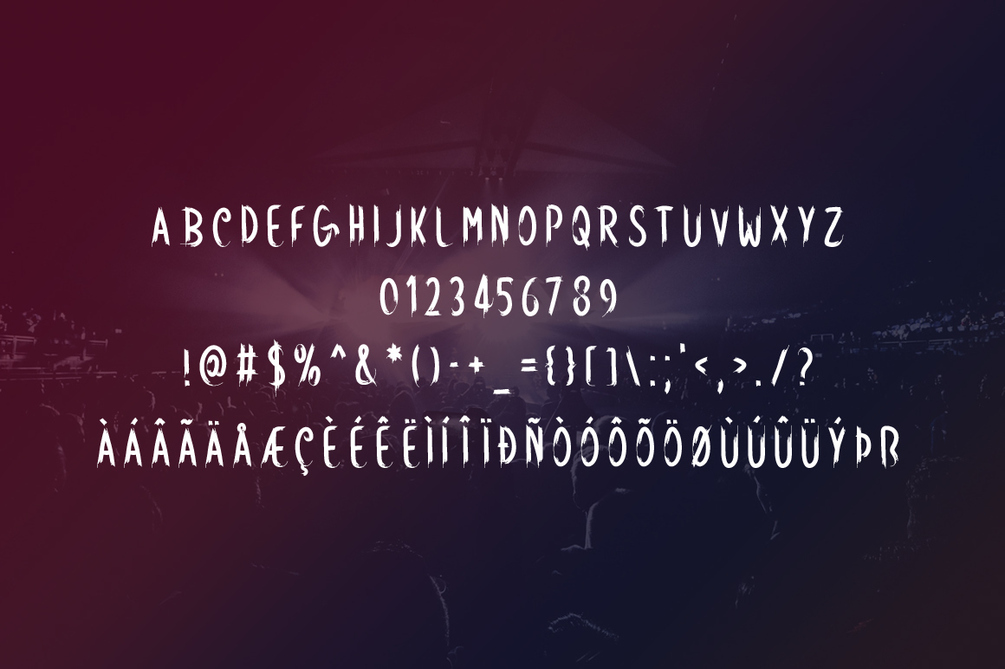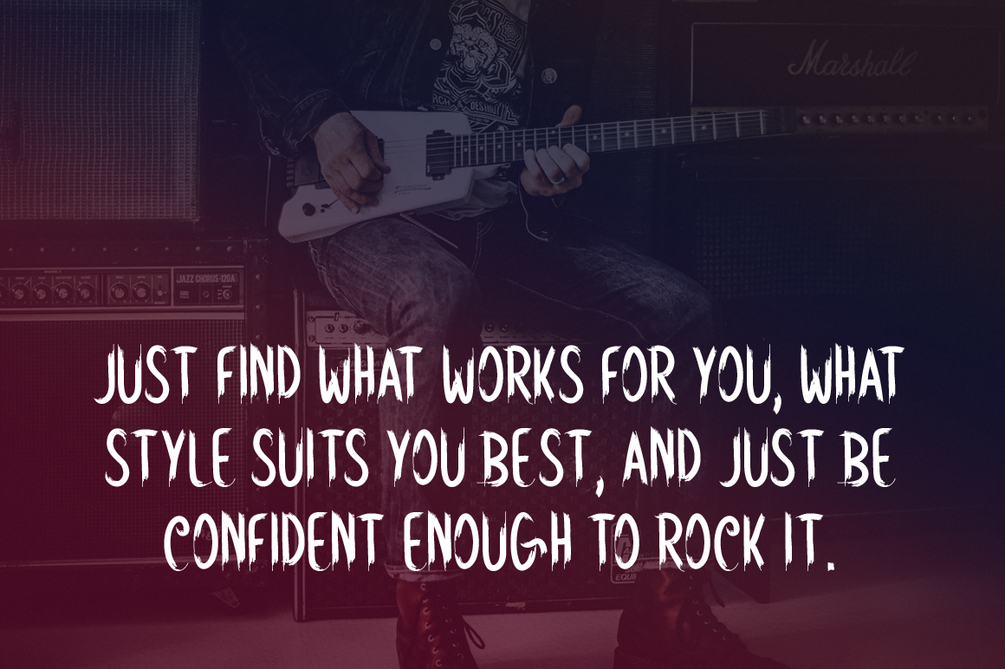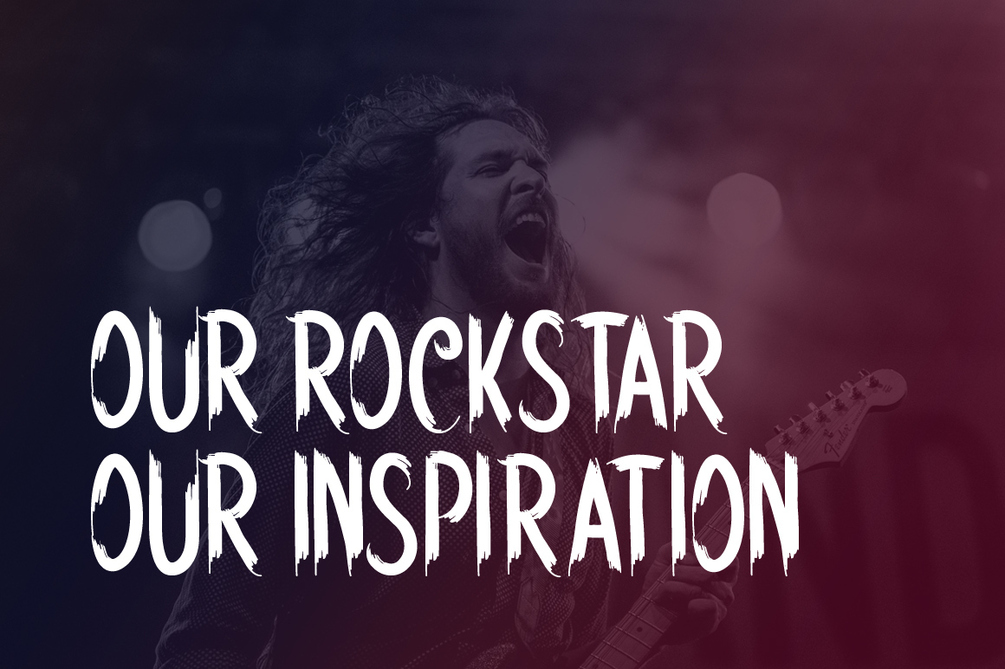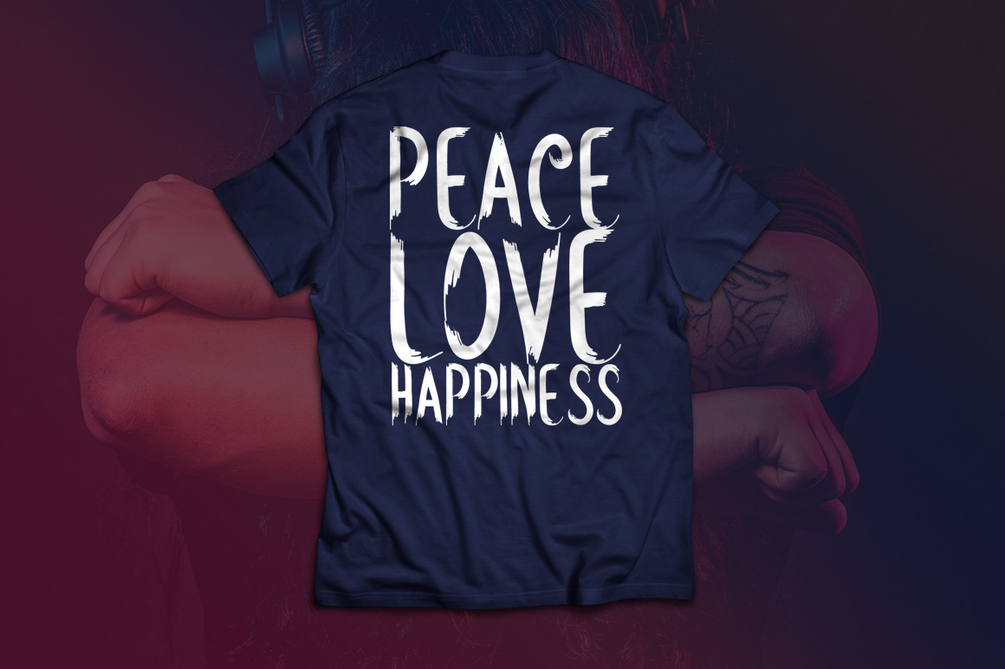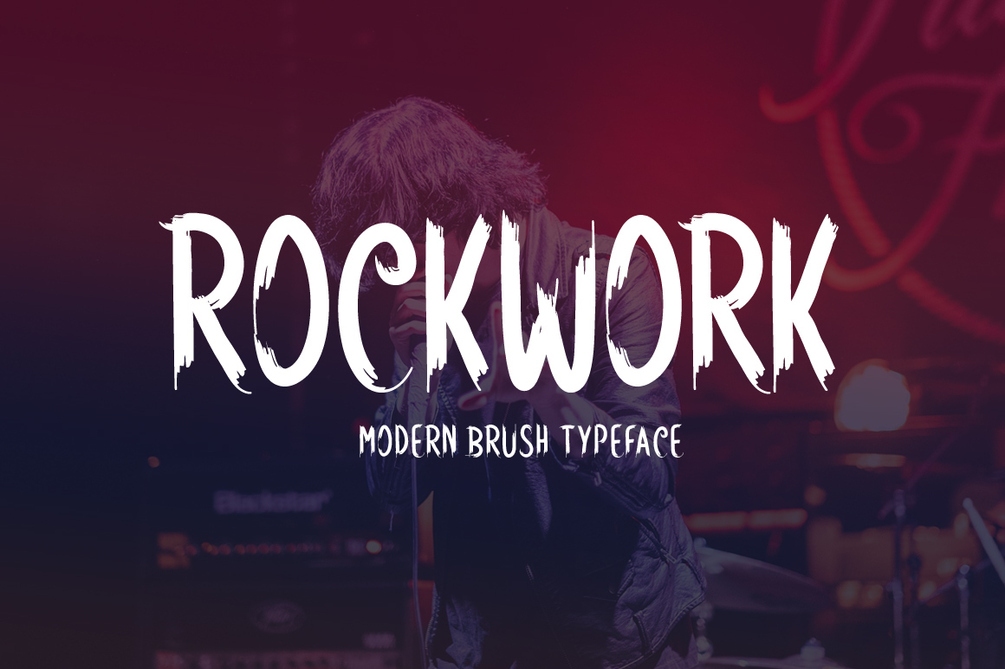
Rockwork Typeface
Rockwork is a brand new modern brush font. Rockwork is perfectly suited for stationery, logos, t-shirt, paper, print design, website header, photo frame, flyer, music cover, poster, image slider and much more.
Includes a range of multilingual support